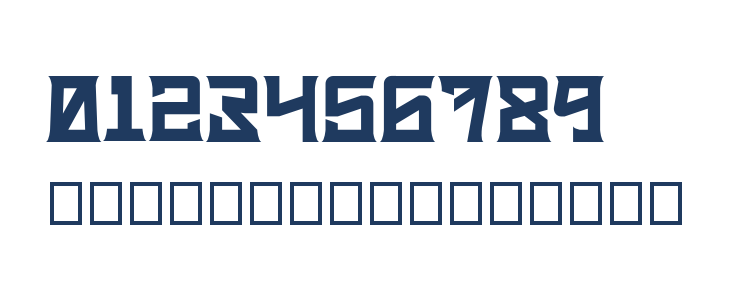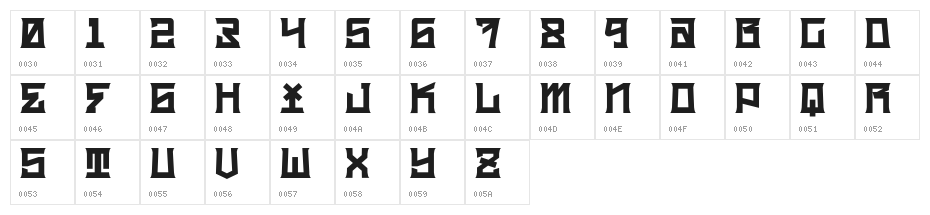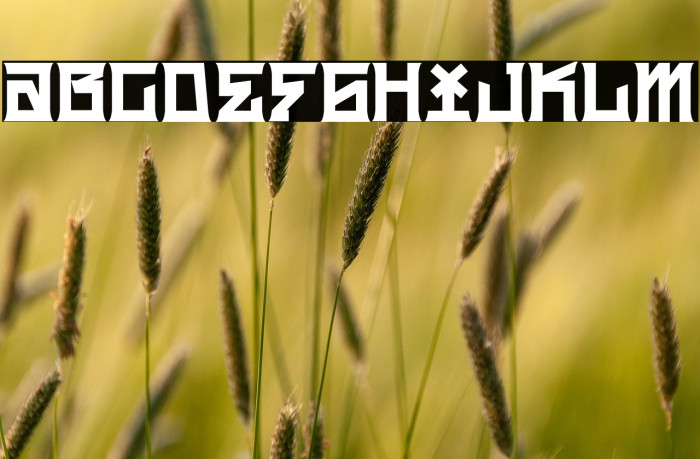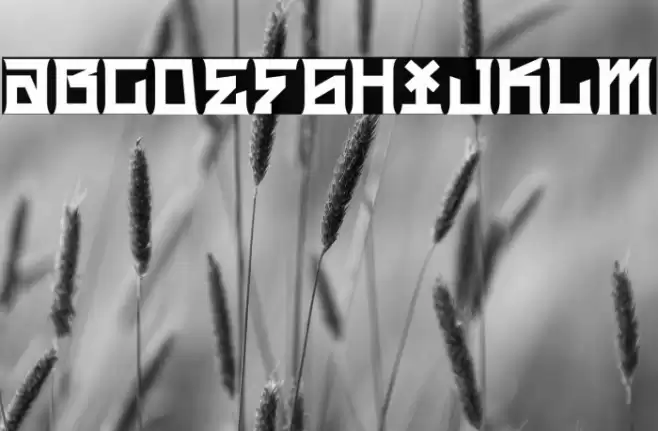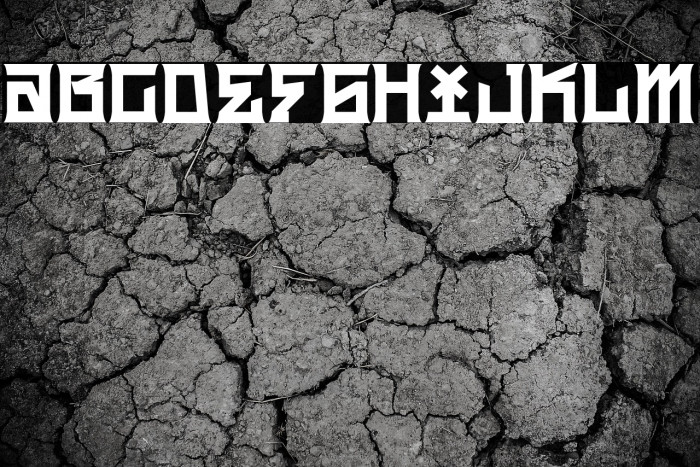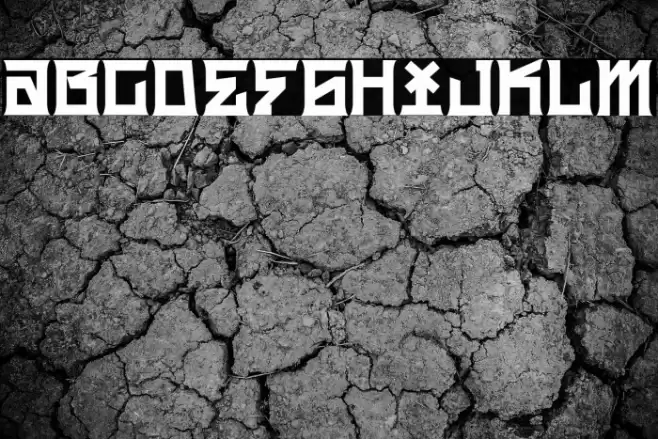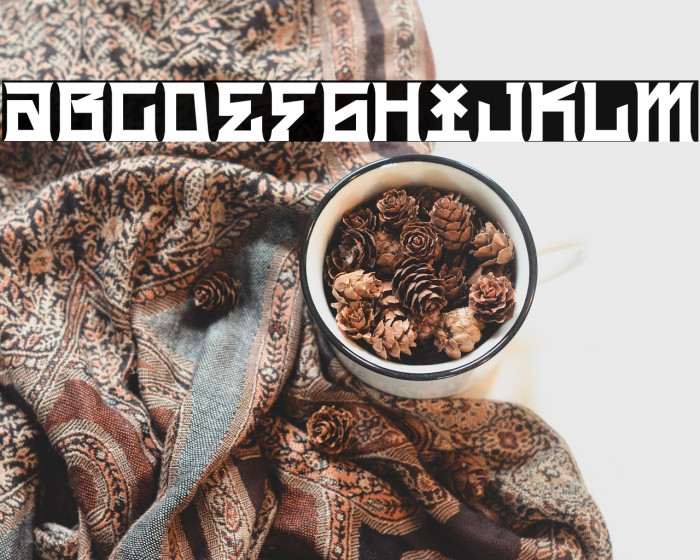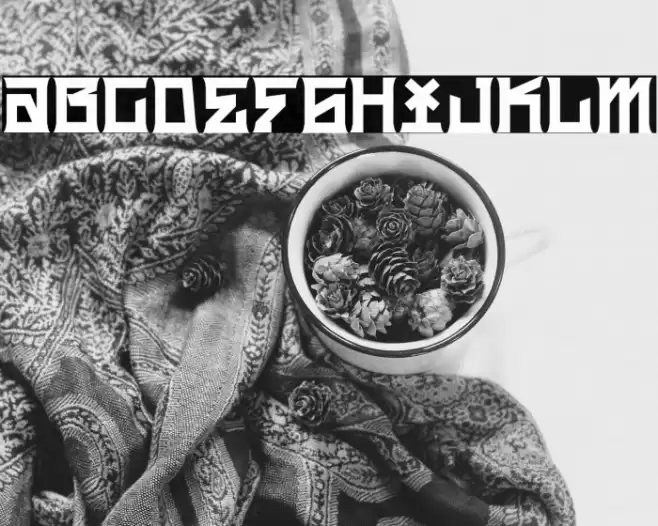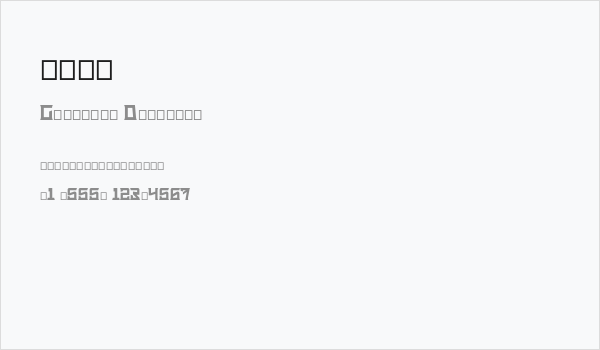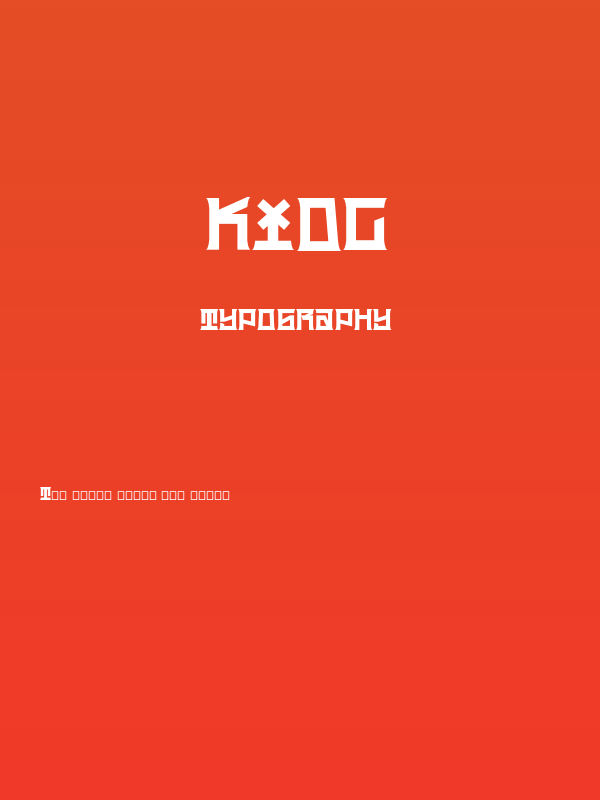
kidc Font
kidc Description
This font features a bold and angular design, characterized by sharp edges and geometric shapes. The uppercase letters have a futuristic and aggressive appearance, with each character exhibiting a unique and stylized form. The numbers follow a similar design ethos, maintaining the bold and edgy aesthetic. The font lacks lowercase letters and special characters, focusing on a strong visual impact. Its distinct style makes it suitable for projects that require a modern and dynamic look.
| Proposed Projects | Ideal for video game titles, sci-fi movie posters, and edgy branding projects. |